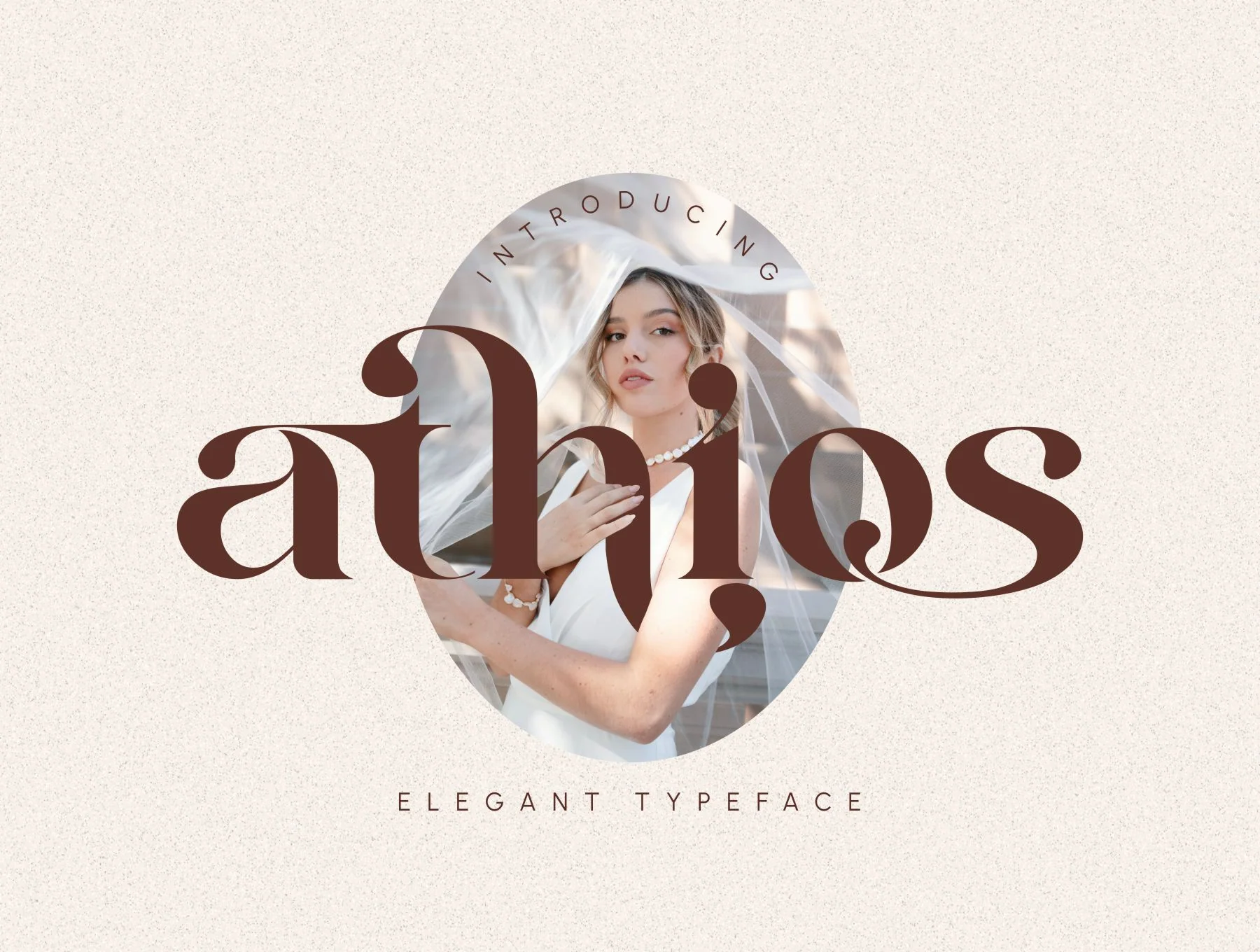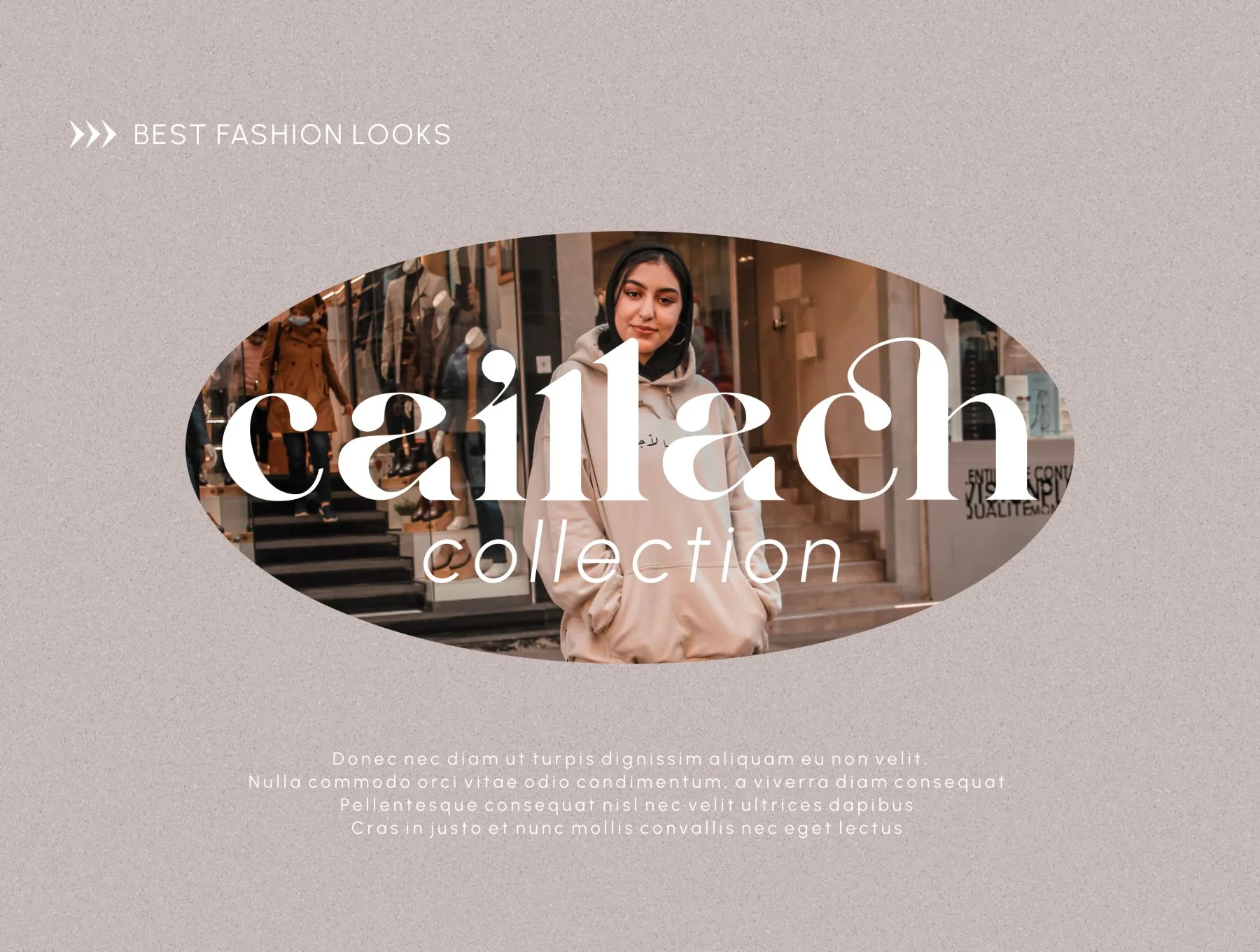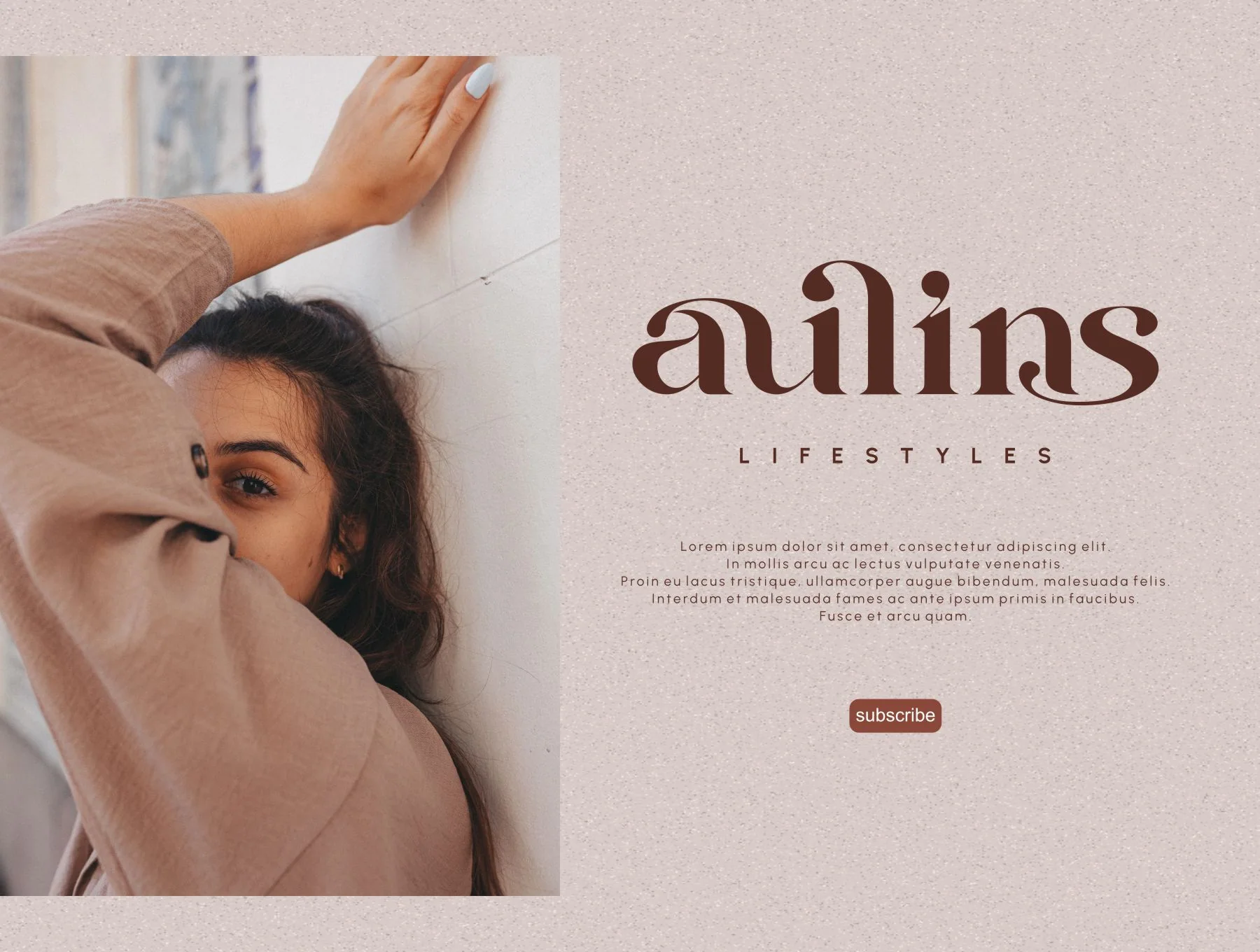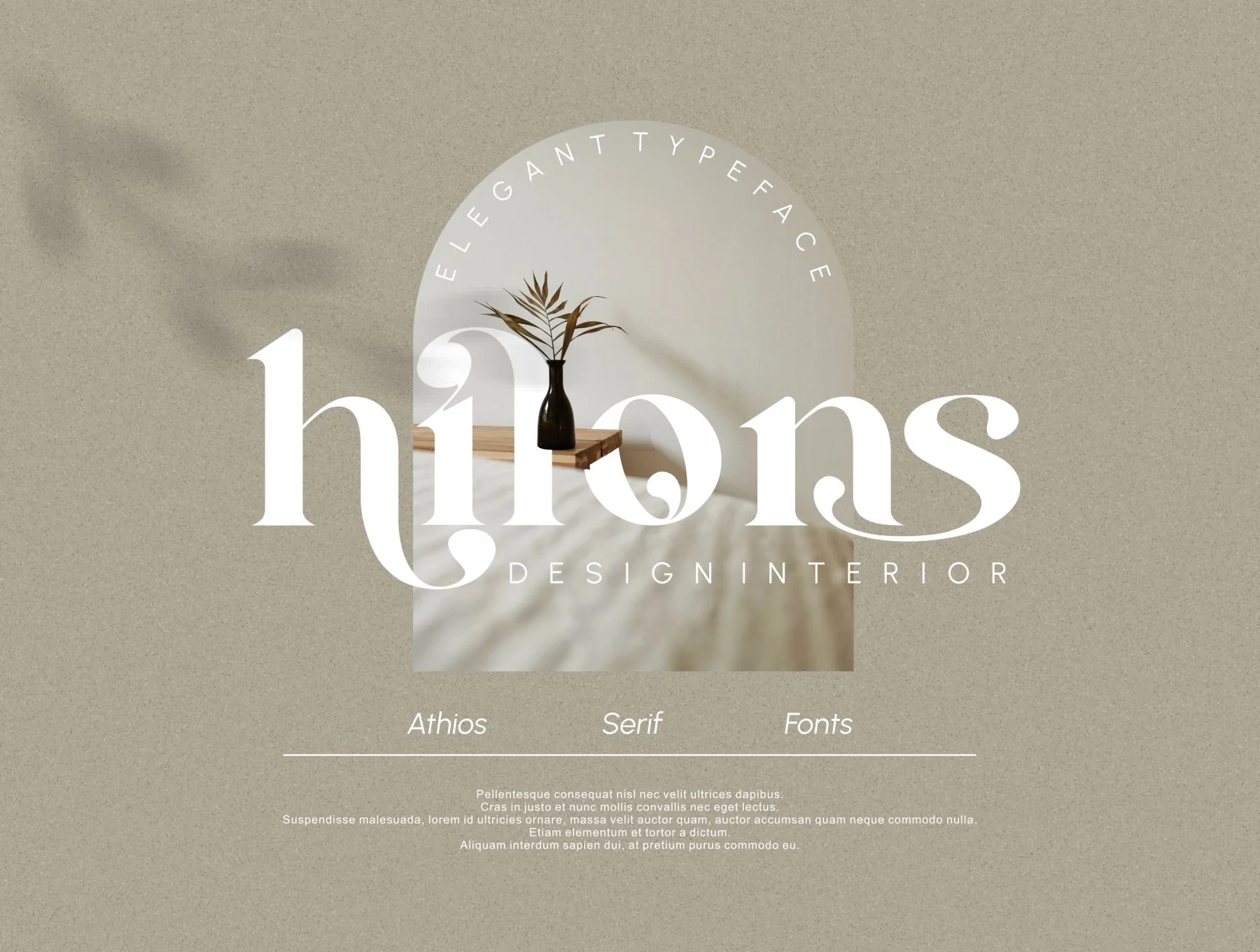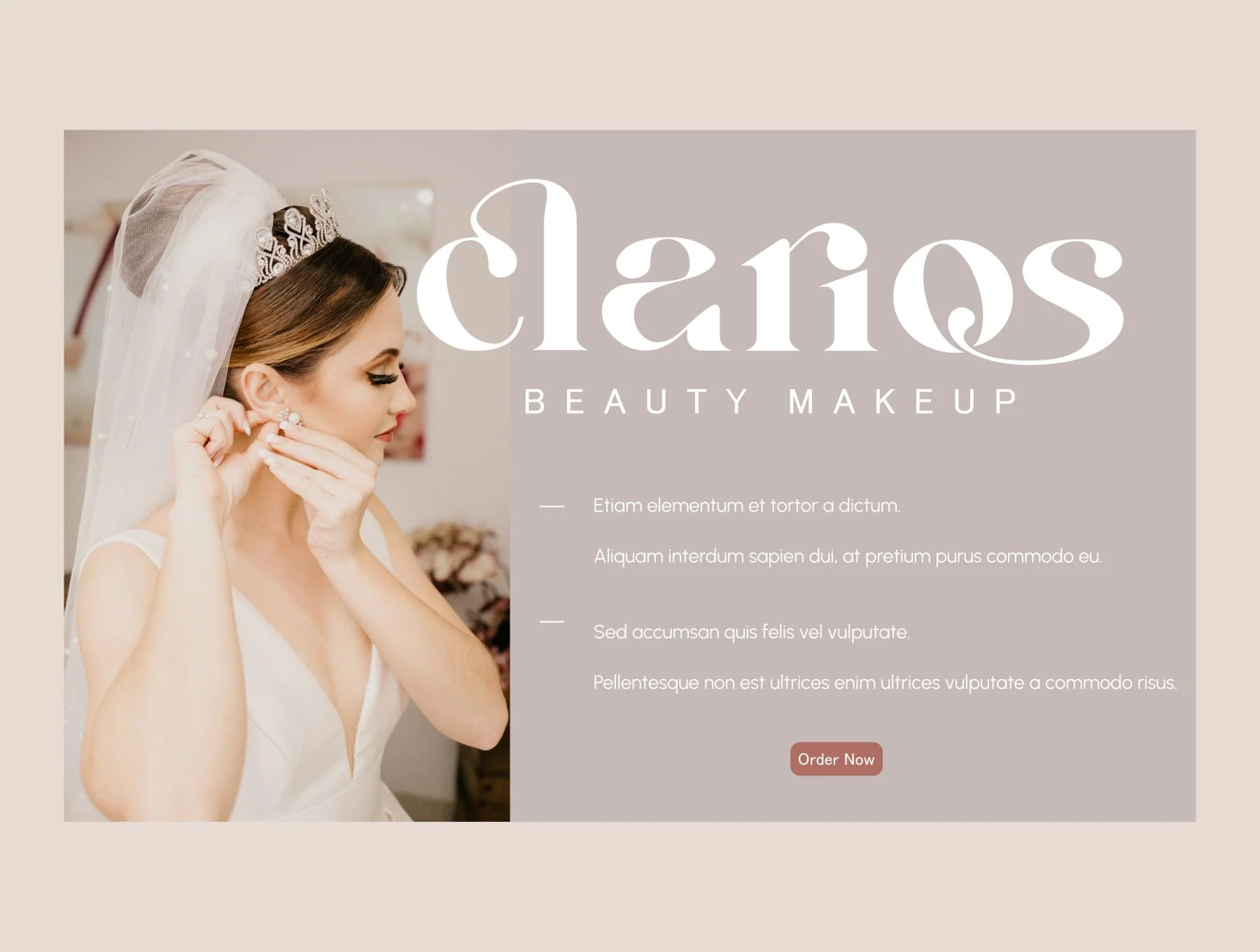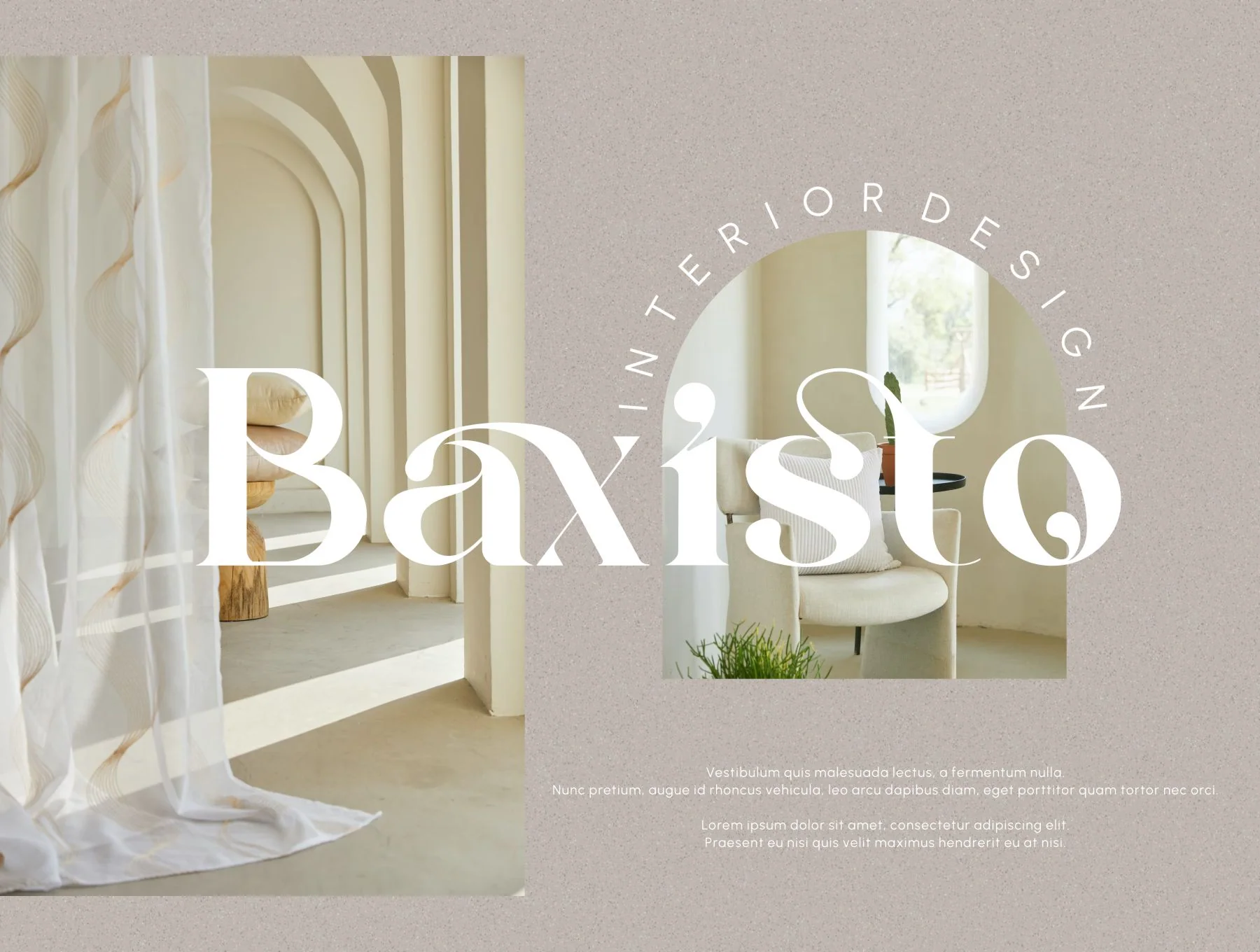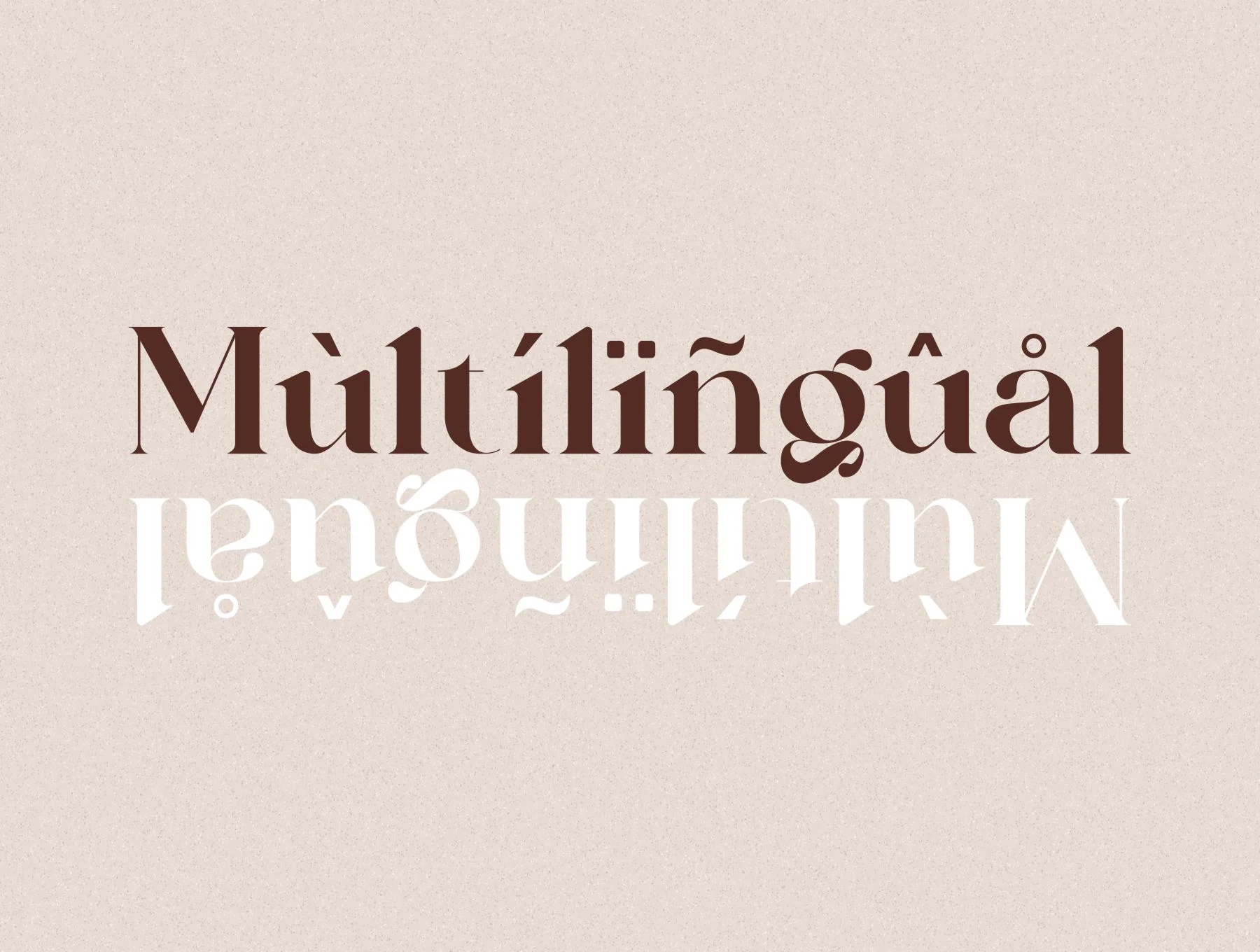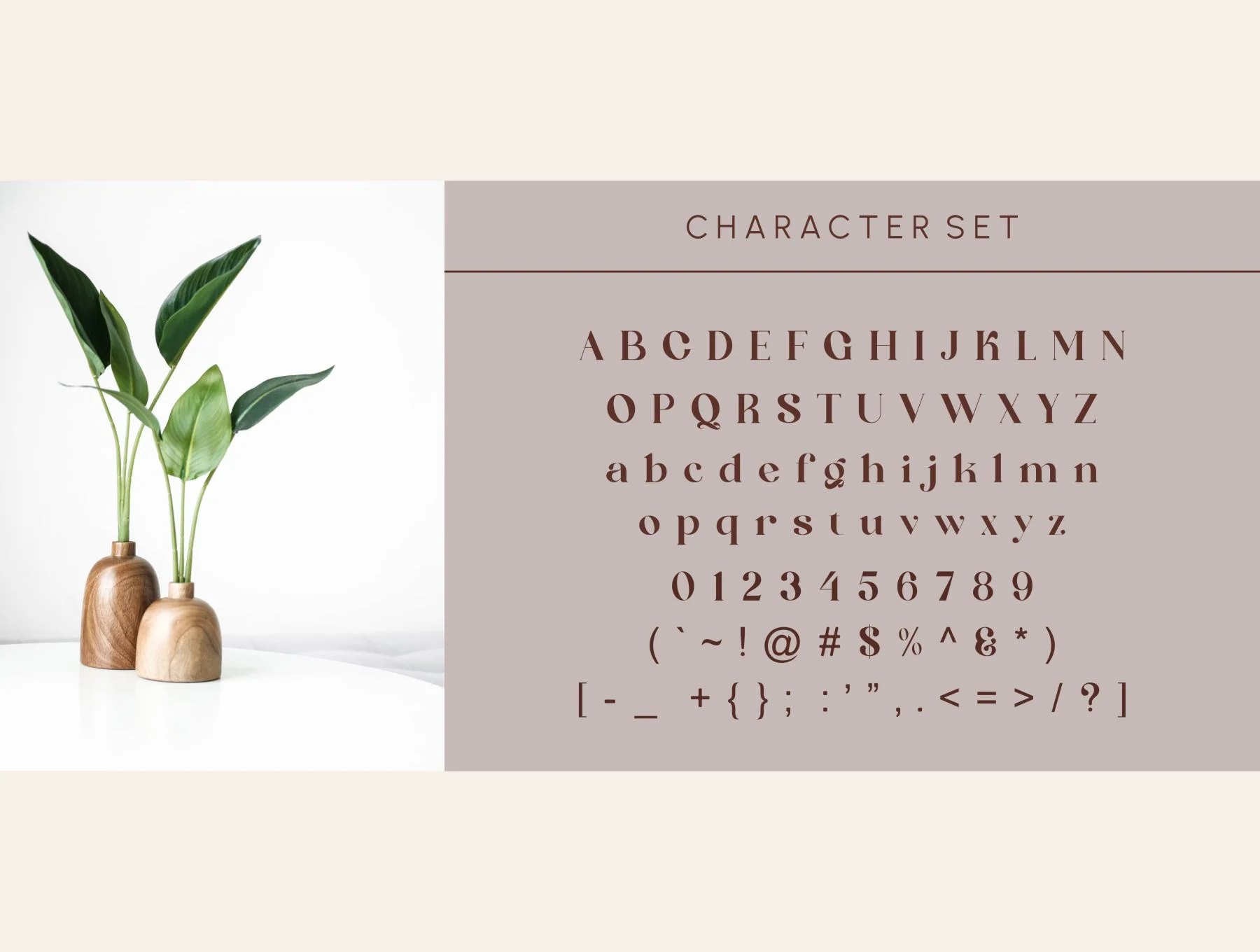
Athios - Elegant Typeface
Refined font with multiple alternates and ligatures
Alternates and ligature glyphs
Athios is an elegant typeface with charming, refined details, alternates, and ligatures for polished typography. Ideal for luxury logos, branding, editorials, women’s magazines, cosmetics, fashion promos, galleries, stationery, ads, invitations, and more. Includes OTF, TTF, WOFF, PUA encoding, multilingual support, and Mac/Windows compatibility.